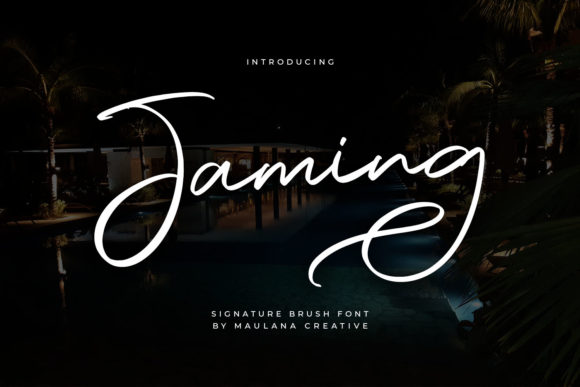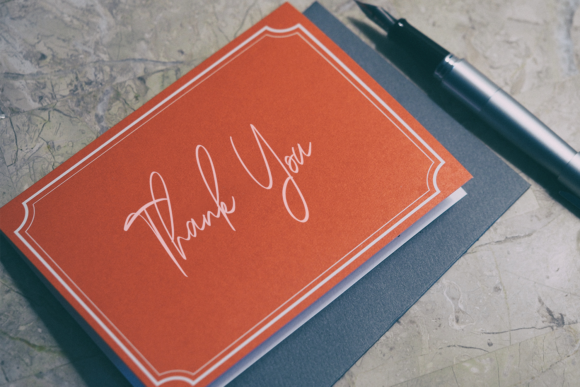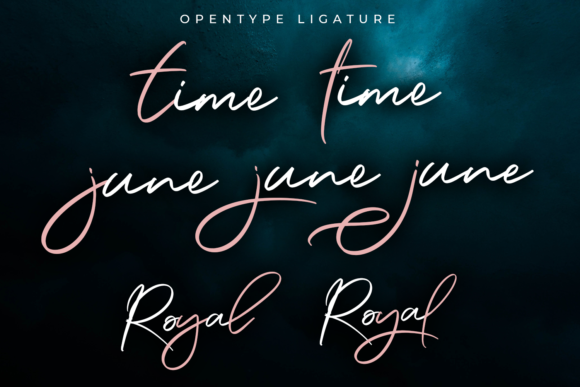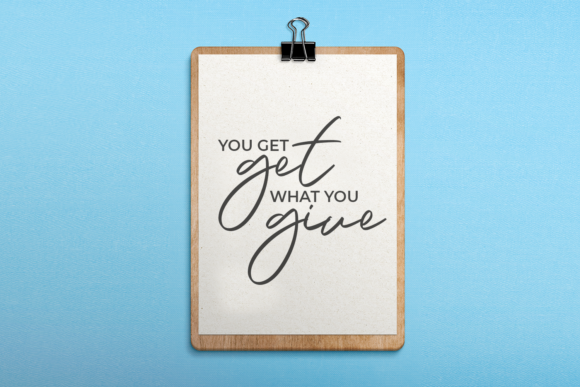
About Jaming Font
Jaming is a stylish and relaxed handwritten font. Not too thin and not too thick, balanced and varied, this font was designed to enhance the beauty of your projects.